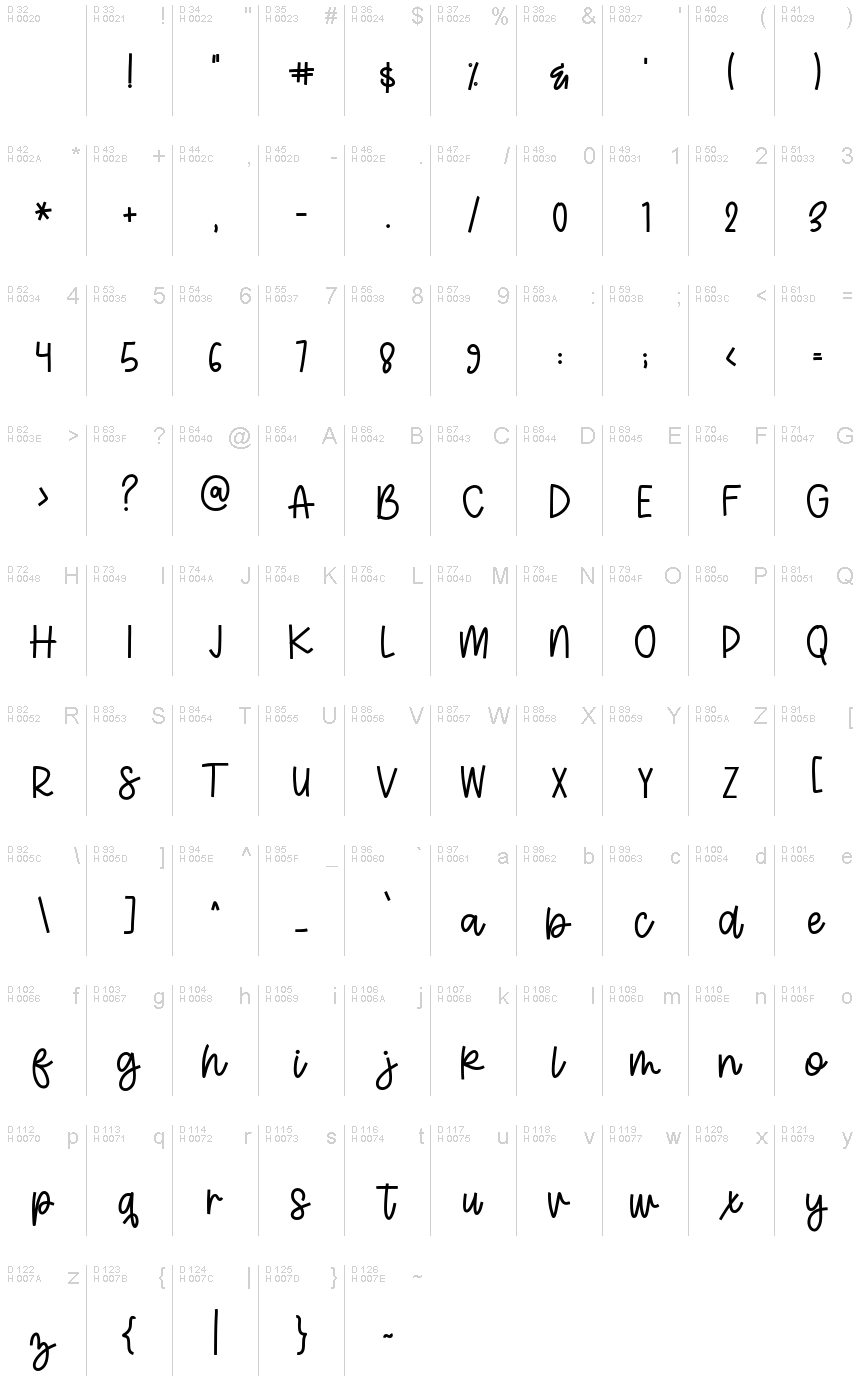
Farmhouse Display
Farmhouse Display, a captivating handwritten font crafted by Goodrichees, exudes a charming, rustic elegance that evokes a sense of warmth and authenticity. Its organic, flowing strokes and slightly imperfect nature lend a heartfelt, handcrafted feel to any design. The font's versatility shines through its ability to seamlessly transition between playful and sophisticated, making it a versatile choice for a wide range of creative projects.
Farmhouse Display's unique character truly shines in branding, packaging, and editorial design, where its natural, handwritten aesthetic can elevate the overall aesthetic. Its personality-driven style is particularly well-suited for projects seeking to convey a cozy, artisanal, or farm-inspired vibe, such as food and beverage packaging, wedding stationery, or lifestyle-focused publications.